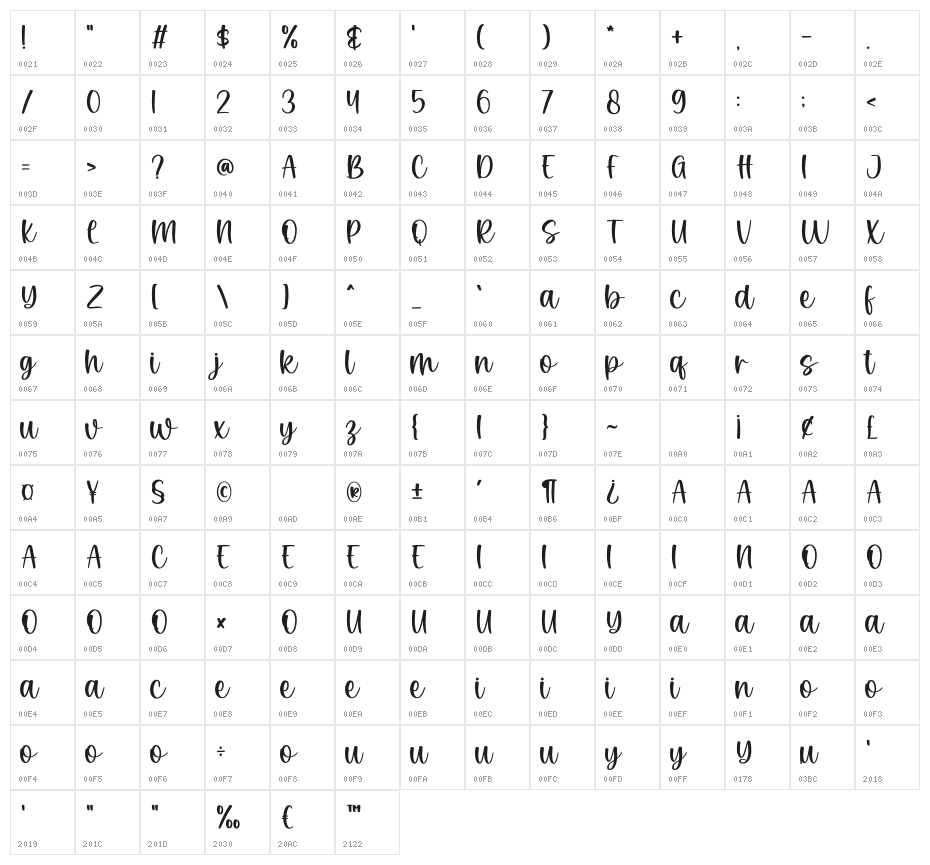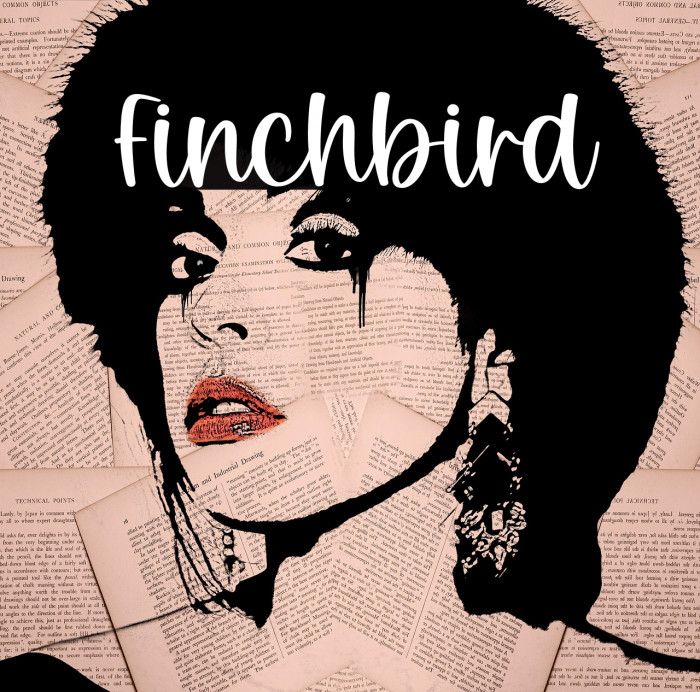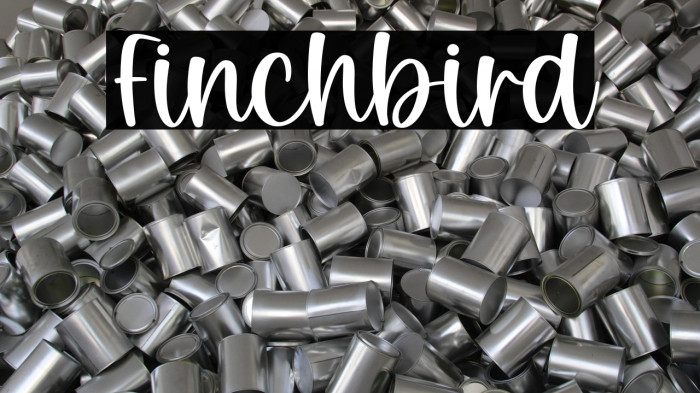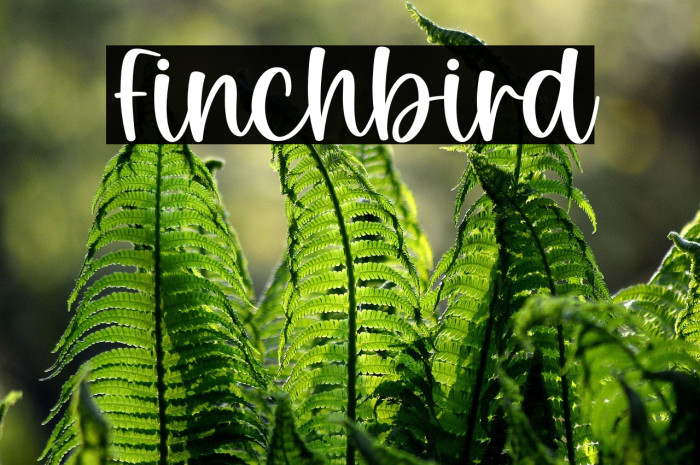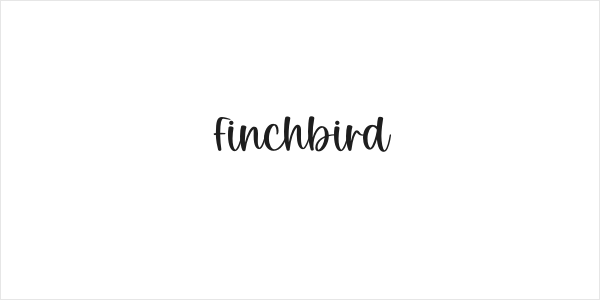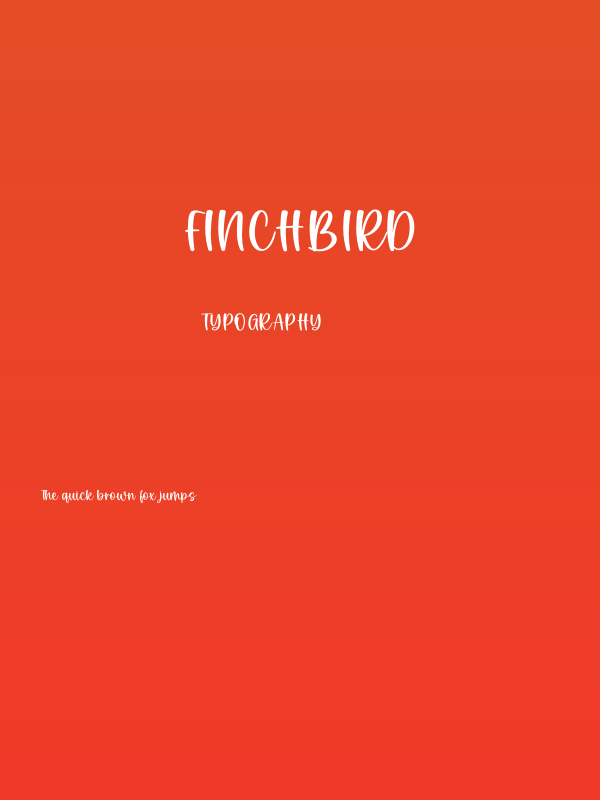
Finchbird Font
Finchbird Description
A playful, handwritten script font with smooth, rounded strokes and a casual, friendly appearance. The letters are slightly slanted and feature consistent thickness, with open counters and a natural, flowing baseline.
| Overall Style | Playful, Modern, Decorative |
| Use Case | Headlines, Logos, Invitations, Social media graphics |
| Proposed Projects | Greeting cards, invitations, social media graphics, branding for creative businesses, quotes, posters. |